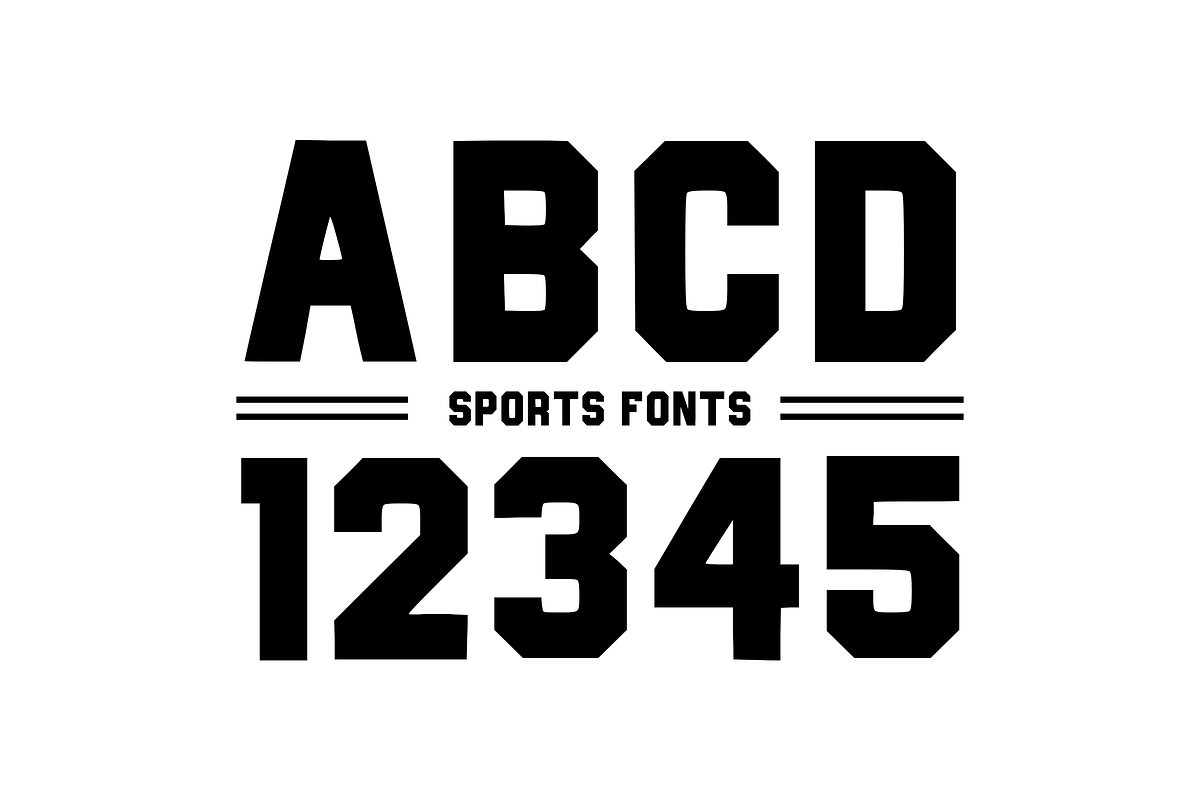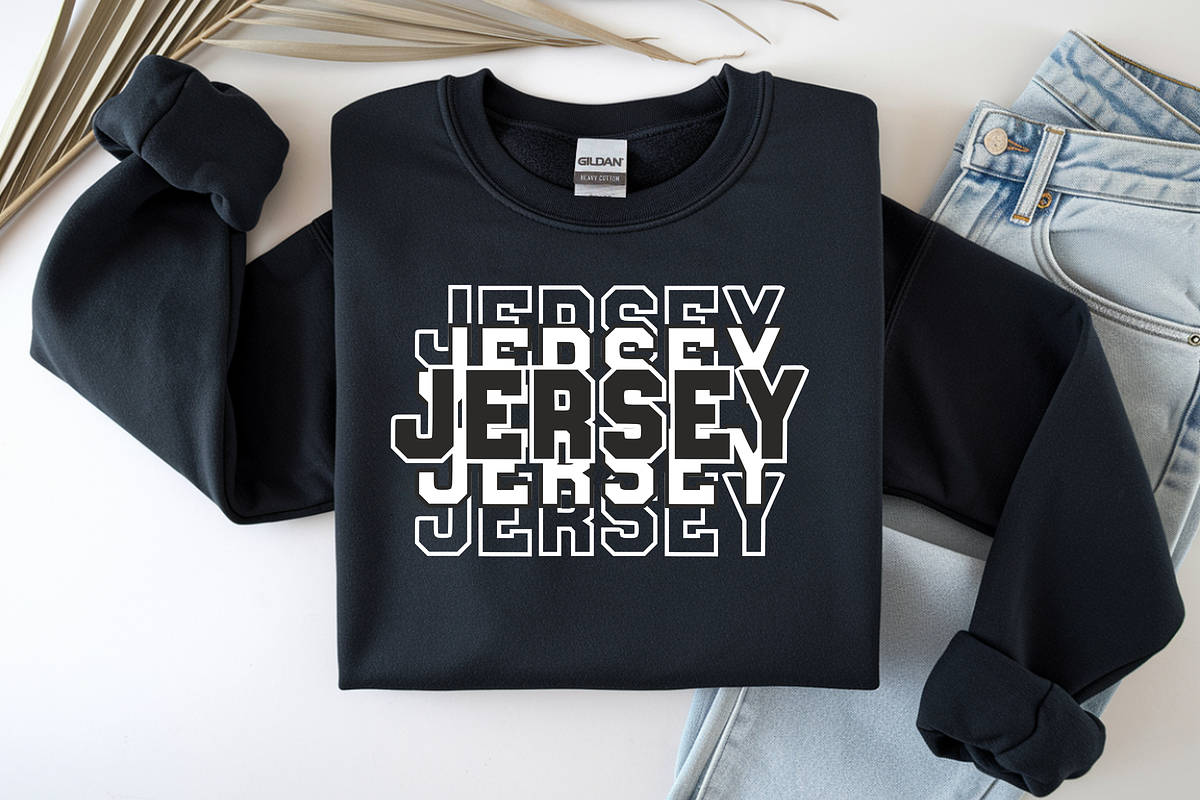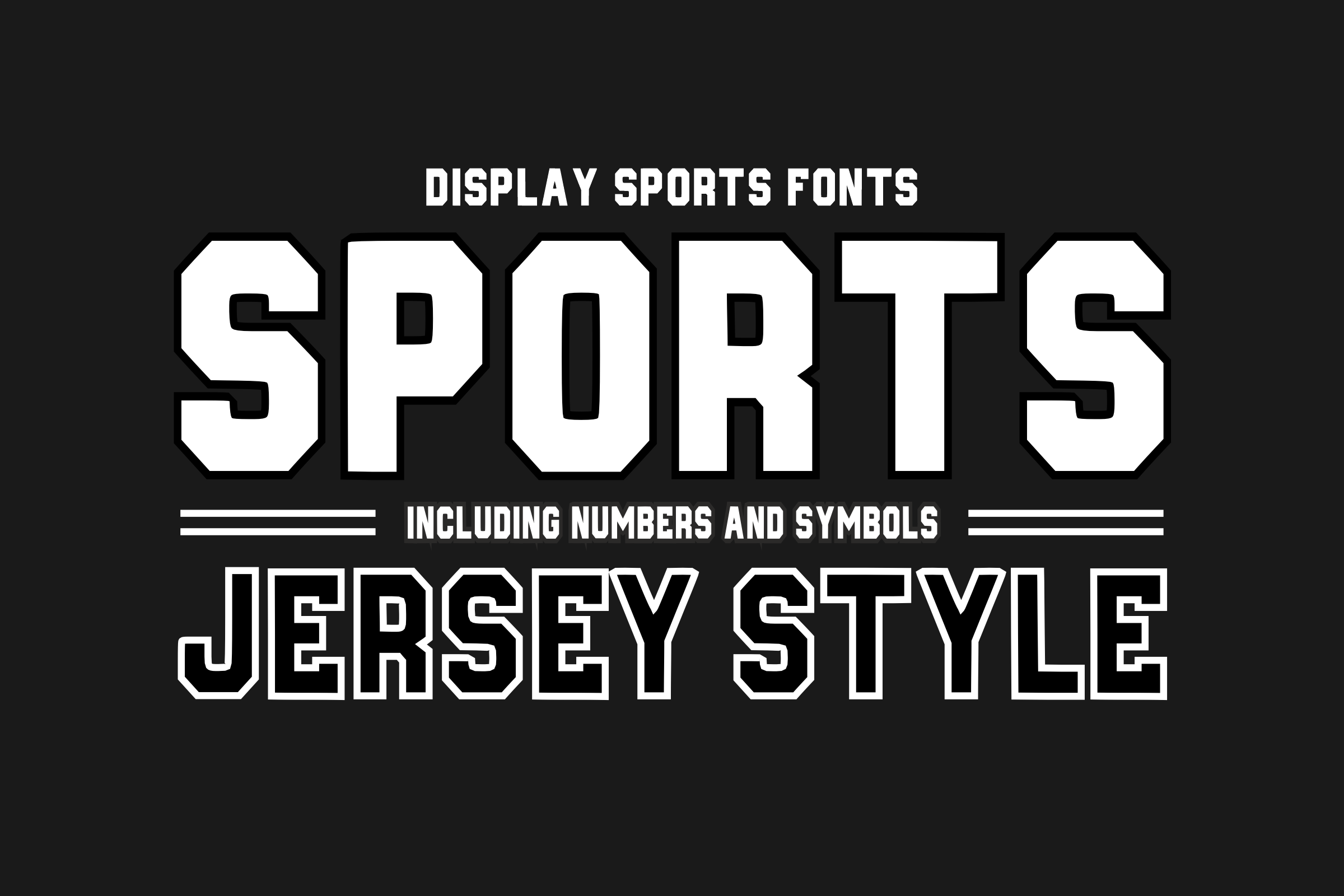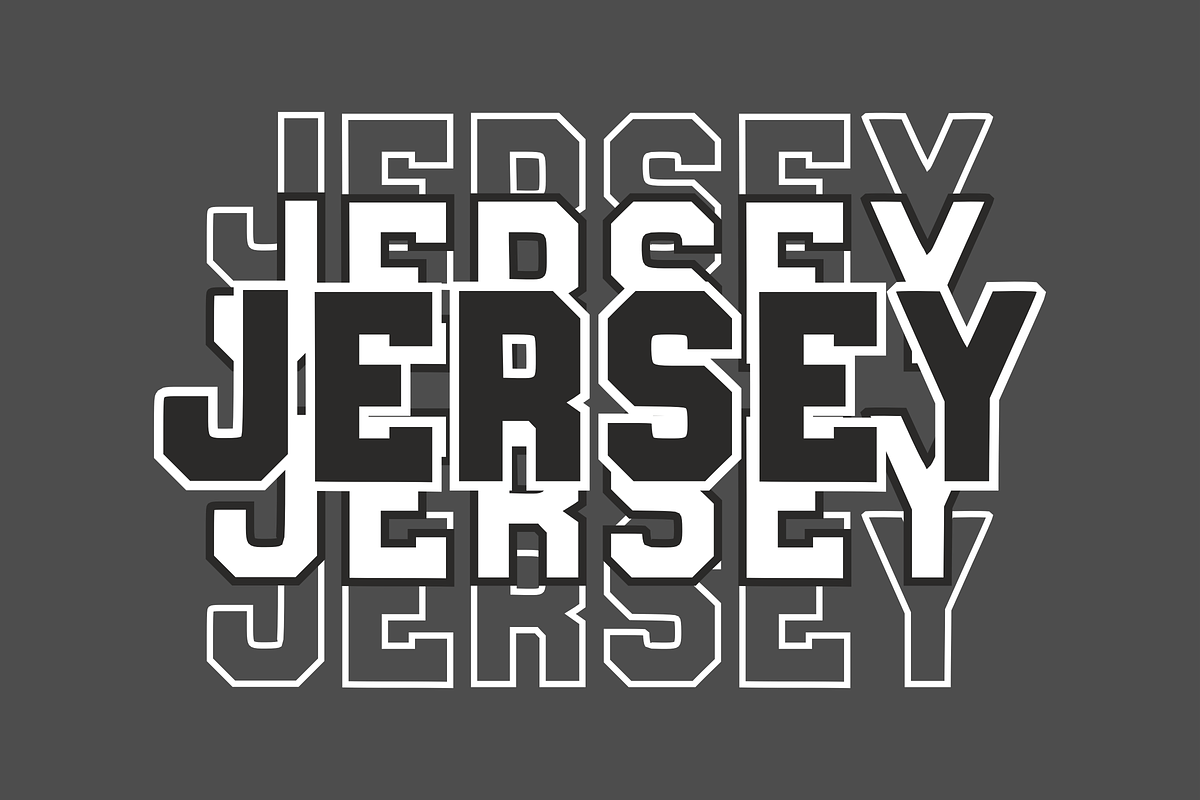
Sports Jersey Style - Varsity Font
Bring a powerful, high-impact athletic energy to your designs with Sports Jersey Style! This classic collegiate block font features bold geometric cuts and strong, sharp letterforms inspired by traditional university sports teams. It’s the ultimate choice for creating professional team logos, custom sports merchandise, and streetwear designs that look instantly commanding and authoritative.
Perfect for clothing brands, athletic events, and trend-focused varsity crafting, Sports Jersey Style delivers crisp line work and excellent legibility. It is highly versatile, cuts beautifully on digital cutting machines like Cricut, and is fully optimized for a flawless look across all professional design software and print setups.
All-Caps Character Set (Bold, crisp athletic block letters with sharp geometric corners)
Numbers & Simple Punctuation (Essential, clean sports-style symbols and numbers included)
Team Jerseys, Sports Apparel, Streetwear Hoodies, & Varsity Jackets 👕
Athletic Club Logos, Fitness Branding, Gym Signage, & Tournament Posters 🏆
Cricut, Silhouette, & DIY Varsity Craft Sublimation Projects ✂️
Tailgate Party Invitations, Football Flyers, & College Event Banners 🏈
Custom Caps, Sports Water Bottles, Team Merch, & Product Packaging 🧢
High-Impact YouTube Thumbnails, Sports Vlogs, & Bold Social Media Graphics ✨